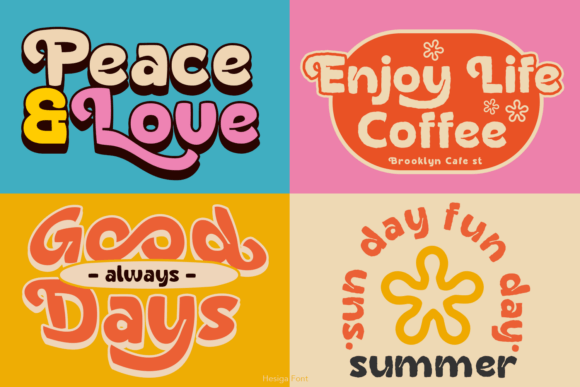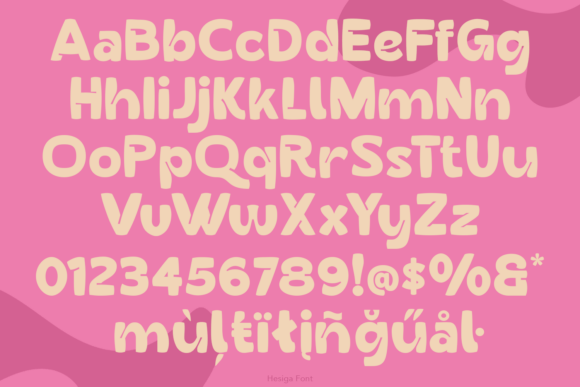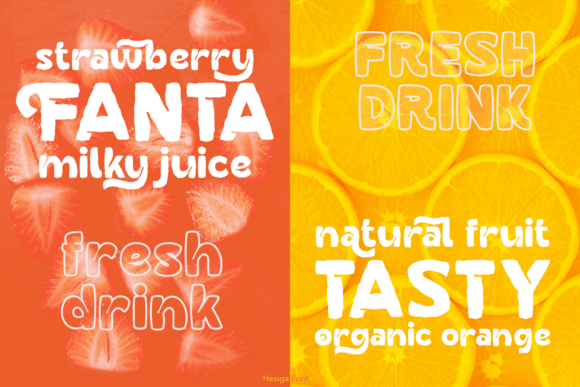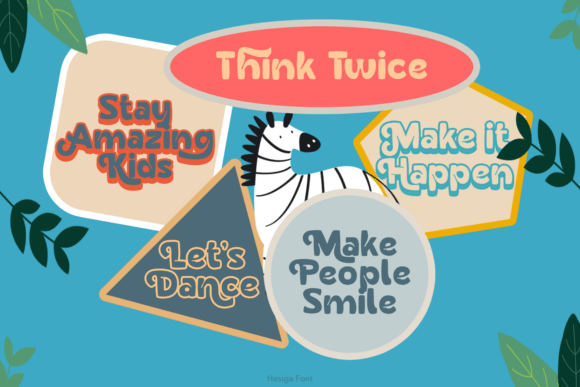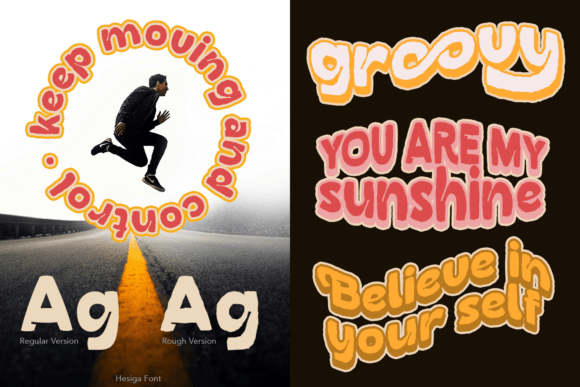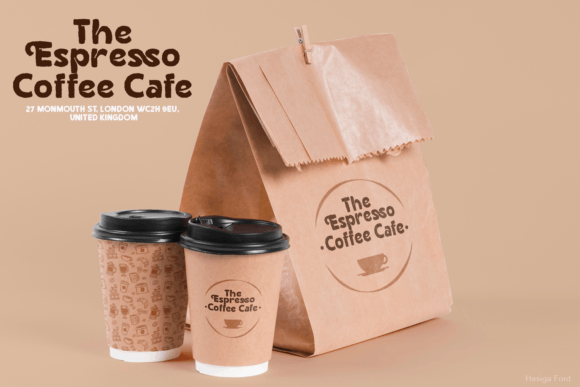
Introduction to Hesiga Font
Hesiga is a fun retro display font, fat and playful 60’s and 70’s inspired designs.
It features bold, curvy lettering dripping with nostalgia perfect for all your project design To access additional characters please visit the glyphs panel.